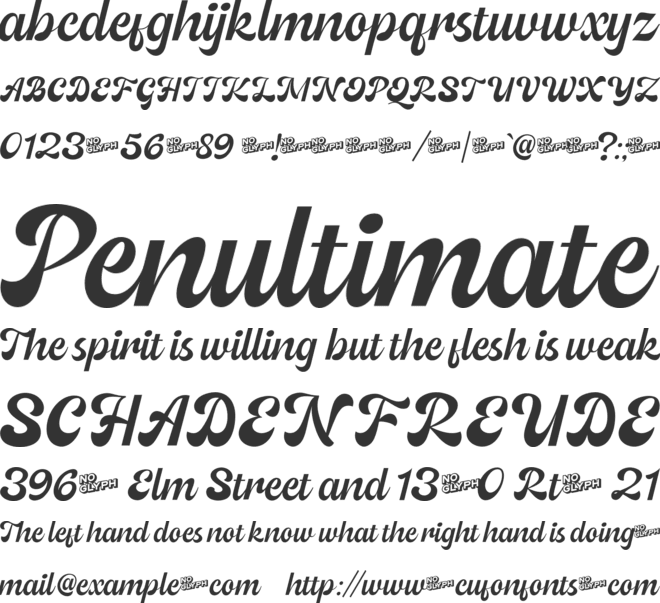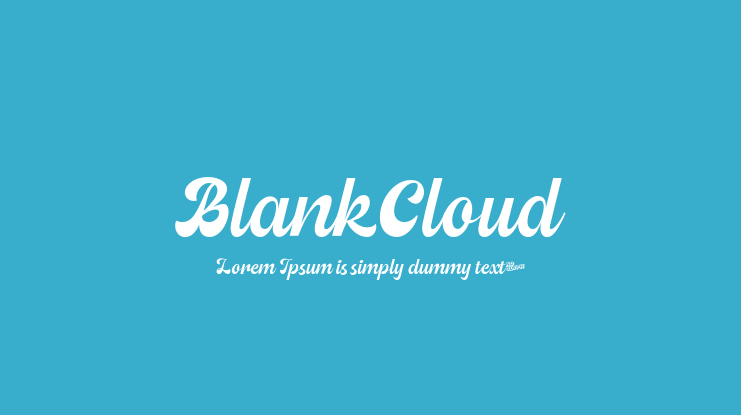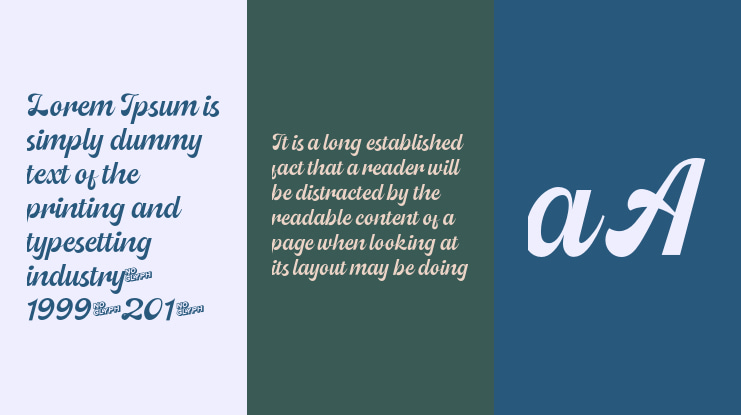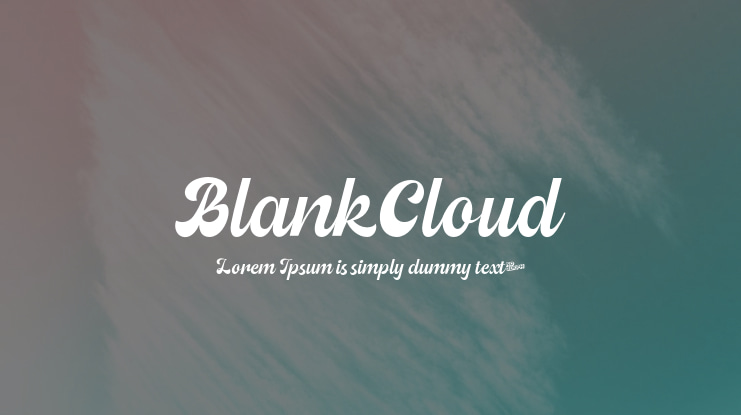
BlankCloud Font
BlankCloud is a typeface that exudes a classic and nostalgic charm, often incorporating design elements from previous eras, such as the 1950s to 1980s. With characteristics such as sharp corners, finely shaped strokes, and bright or contrasting color palettes, retro fonts create an atmosphere reminiscent of the past while providing a fresh and creative touch. With unique and eye-catching designs, retro fonts can enrich the look of your graphic design projects, websites or printed materials, adding a standout vintage touch.